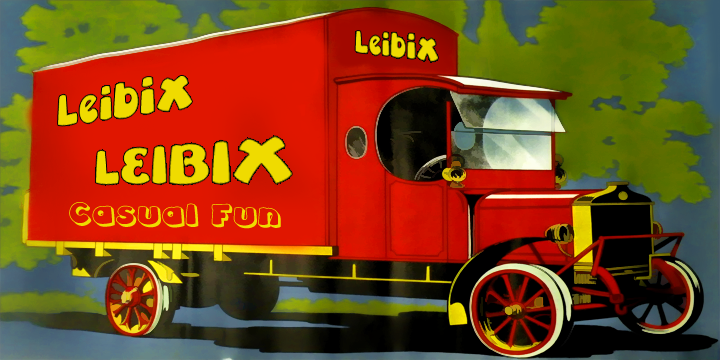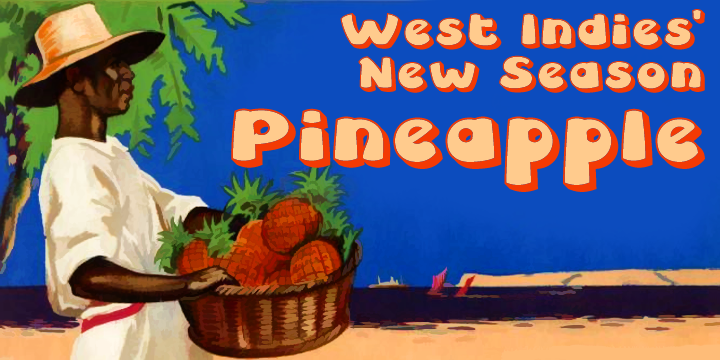
Leibix is a retro and kids font family. This typeface has five styles and was published by Greater Albion Typefounders.
Leibix, inspired by a jolly trademark of the past, is a fun family of five typefaces which transcends different eras of the past. It has elements of the 1920s in its design, but is equally at home with projects having a 1970s theme of an up to the minute modern one. Use it for eye catching cartoon captions, in posters of anywhere else a casual impact is required.